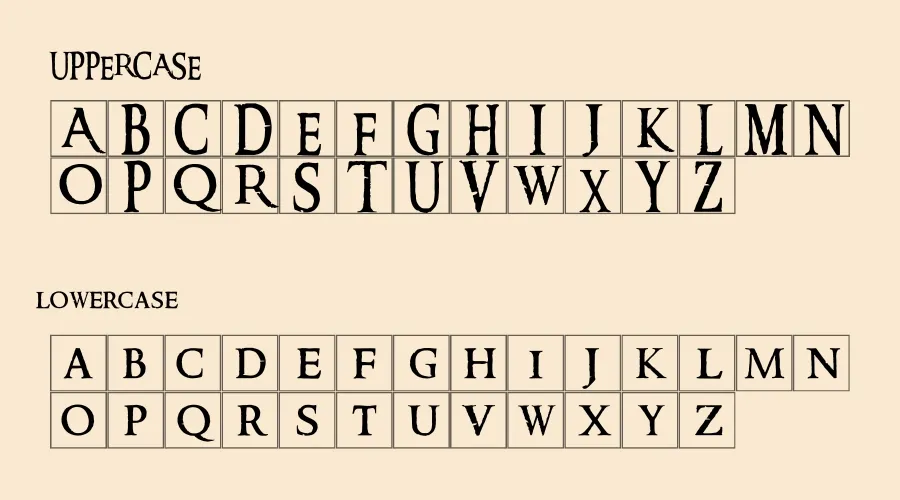
Hobbit Font
About Hobbit Font
Berthold Wolpe a well-known designer designed Hobbit Font. Its copy-and-paste feature is available to all users. Having good content as well as styles could be done up in an appealing way as a result.
With such typography, users could really generate delightful and remarkable layouts. The font is flawless for a respective design that demands a versatile impression.
The typeface is particularly appropriate for branding, headlines, and invites. It is a typeface that can make a surprising brand interpretation with a sophisticated and gorgeous rough design.
Presentations, and transcripts can be completed with this lettering style. You can custom this style conferring to the requirement of the venture.
The letters of this lettering style, have a very sleek look there are few characters in every letter of this style that has the right height, width, and idealized space between the letters. The design of this lettering makes this type an unbelievable choice for lively plans.